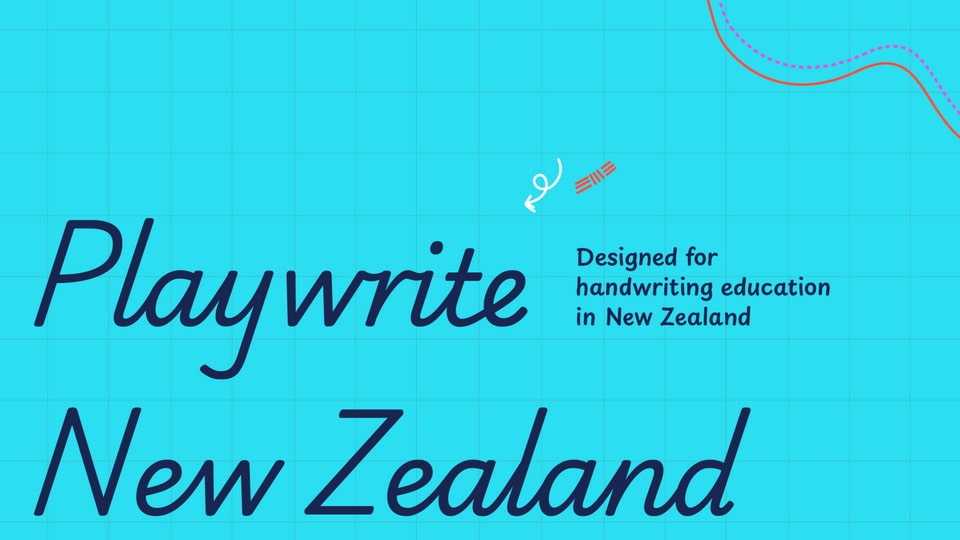
Download Playwrite New Zealand font, a typeface that allows the creation of primary school cursive fonts. This modern cursive style is extremely fast and slanted, featuring simplified print-style uppercase letters.
Designer: TypeTogether